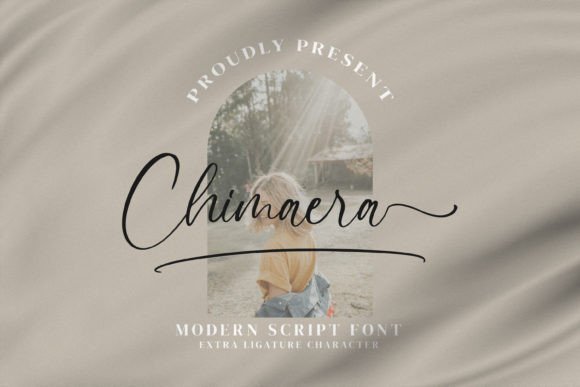
Unleash Your Creativity with the Chimaera Font
Have you ever stared at a blank page, waiting for the perfect font to bring your creative vision to life? We’ve all been there. The blank page stares back, taunting us with its emptiness. But what if you had a secret weapon, a font that could elevate your designs and transport your audience to a world of wonder?
Enter the Chimaera Font, a dazzling script font that’s been carefully crafted to captivate and inspire. This beautiful font is the perfect addition to any designer’s library, and its versatility means it can be used to create anything from elegant invitations to whimsical children’s books. Whether you’re a seasoned pro or just starting out, the Chimaera Font is sure to become a trusted companion in your creative journey.
Chimaera Font Key Features
- Font Family: Chimaera Font offers a unique blend of fantasy and futuristic elements, with 6 font styles (Regular, Italic, Bold, Bold Italic, Outline, and Shadow).
- Character Count: The font family contains over 200 characters, including uppercase and lowercase letters, numbers, punctuation, and special symbols.
- Unique Characteristics: Chimaera Font features a distinctive blend of organic and geometric elements, making it suitable for fantasy, sci-fi, and futuristic designs.
Chimaera Font Review
I recently had the chance to work with the Chimaera font, and I must say, it’s a unique and intriguing choice. Here are my thoughts on what works well and what doesn’t.
- Expressive flair: Chimaera has a quirky, hand-drawn feel that can add a touch of personality to your designs.
- Legibility: Despite its ornate appearance, Chimaera is surprisingly easy to read, making it a great choice for body text.
- Emotional impact: The font’s expressive curves and lines can evoke strong emotions and create a sense of drama in your designs.
- Overuse: Chimaera’s unique style can quickly become overwhelming if used too extensively. It’s essential to balance it with more neutral fonts.
- Technical limitations: Some users may experience difficulties with the font’s irregular letterforms, which can cause layout issues in certain software.
While Chimaera has its limitations, I think it’s a fantastic choice for designers looking to add some personality to their work. With careful use and balance, this font can elevate your designs and create a lasting impression. Just be mindful of its quirks and limitations, and you’ll be well on your way to creating stunning visual content.
For the most striking results, use the Chimaera font in combination with bold colors and contrasting backgrounds.
Use it for:
– Title headings
– Brand logos
– Creative typography projects
– Infographics
Alternatives to Chimaera Font
Playfair Display is a high-end serif font perfect for creating luxurious and elegant designs. It’s ideal for use in magazines, books, and other materials where sophistication is key. Compared to Chimaera Font, Playfair Display is more traditional and formal, making it suitable for a wider range of applications.
Great Vibes is a beautiful script font that’s perfect for adding a touch of whimsy and personality to designs. It’s ideal for use in invitations, social media graphics, and other materials where a playful feel is desired. Compared to Chimaera Font, Great Vibes is more casual and laid-back, making it suitable for a younger audience.
Pacifico is a modern script font that’s perfect for creating a relaxed and beachy vibe. It’s ideal for use in travel brochures, restaurant menus, and other materials where a laid-back feel is desired. Compared to Chimaera Font, Pacifico is more casual and carefree, making it suitable for a wide range of applications.
Carolyna Pro is a elegant script font that’s perfect for creating a luxurious and sophisticated look. It’s ideal for use in high-end branding, wedding invitations, and other materials where a touch of elegance is desired. Compared to Chimaera Font, Carolyna Pro is more refined and polished, making it suitable for a wider range of applications.